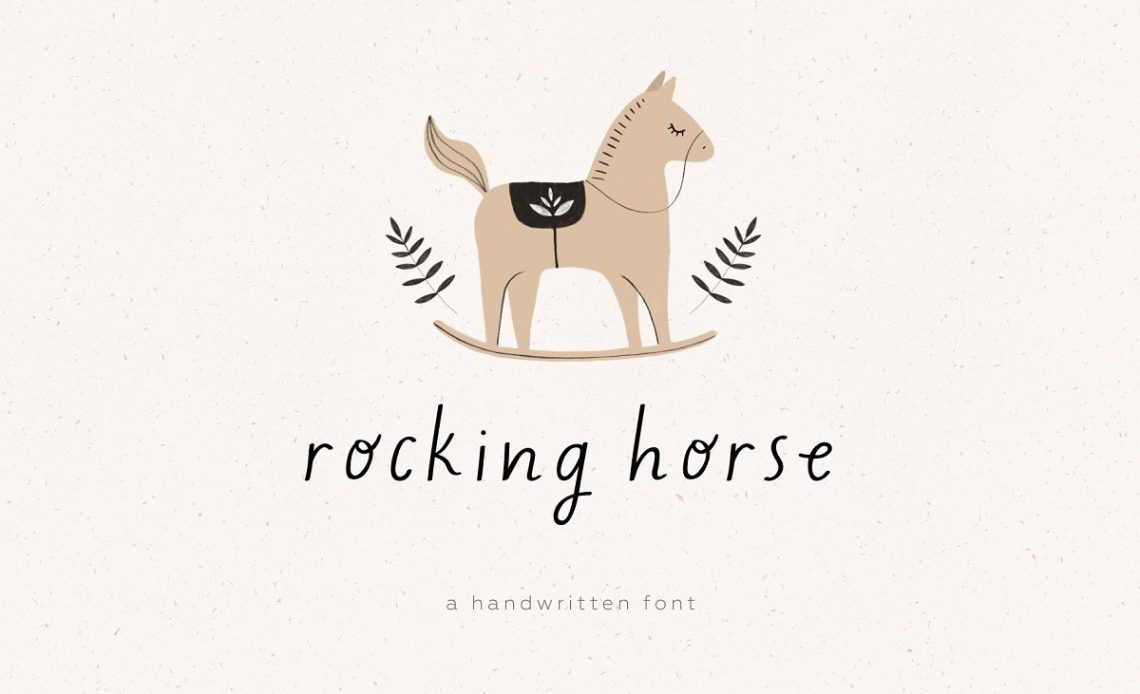
Welcome to the world of Rocking horse – the perfect choice for designers and creatives who are looking for a high-quality handwritten font. Created by the talented Angelina Kovel, this font is a beautiful blend of elegance and personality, making it the best font for a book and other projects.
Rocking horse is a stunning font that is perfect for logos, cards, posters, and other designs. It comes with a range of features that make it stand out from other fonts, such as its hand-drawn appearance, which gives it a unique charm that is difficult to find in other fonts.
One of the best things about Rocking horse is its versatility. It can be used for a wide range of projects, from personal projects like invitations to professional projects like branding and advertising. The font is also ideal for anyone who wants to add a touch of personality to their work, as its playful and fun design is sure to grab the attention of any audience.